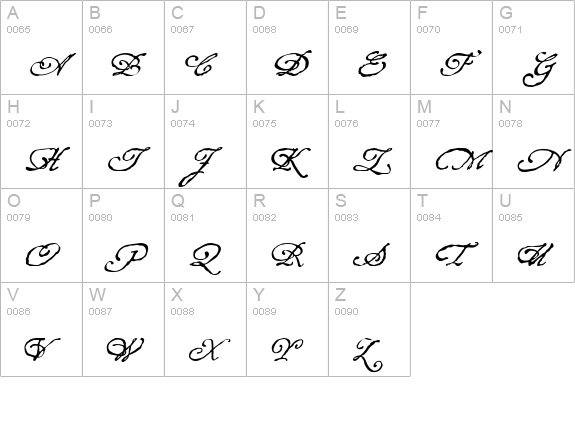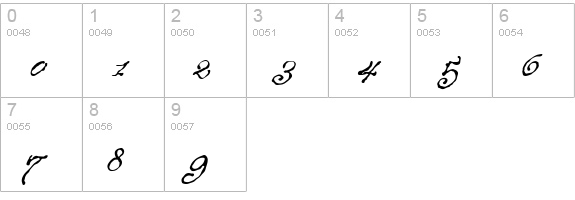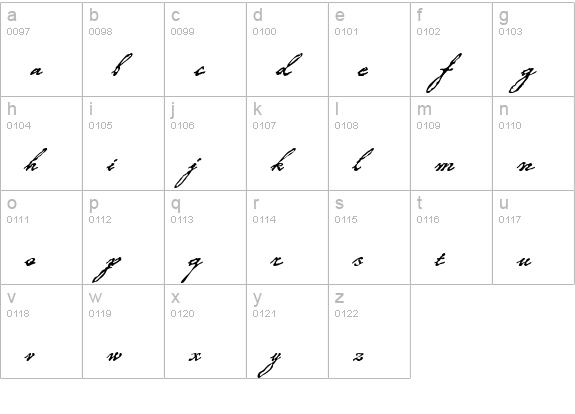
Roanoke Script Font Details
Roanoke Script font is a beautifully crafted typeface that exudes elegance and sophistication. Its flowing curves and intricate details make it perfect for adding a touch of elegance to your designs. The font features a unique blend of classic and modern elements, making it versatile for various design projects. One of the best things about Roanoke Script font is that it is completely free to download. You can easily access this font on FontsMarket.com and enhance your projects with its stunning aesthetic appeal. Whether you are working on invitations, branding, or any other creative project, Roanoke Script font is sure to elevate your designs to the next level. Download Roanoke Script font today and unleash your creativity with this exquisite typeface that is both timeless and contemporary.